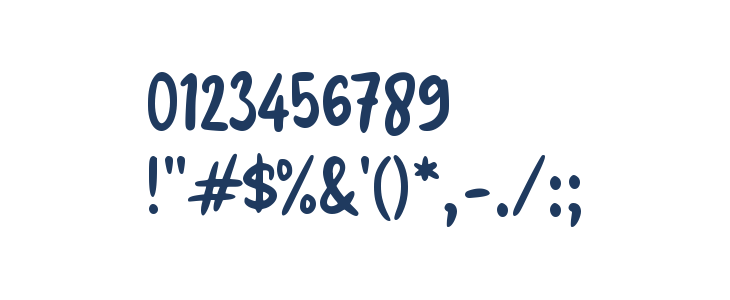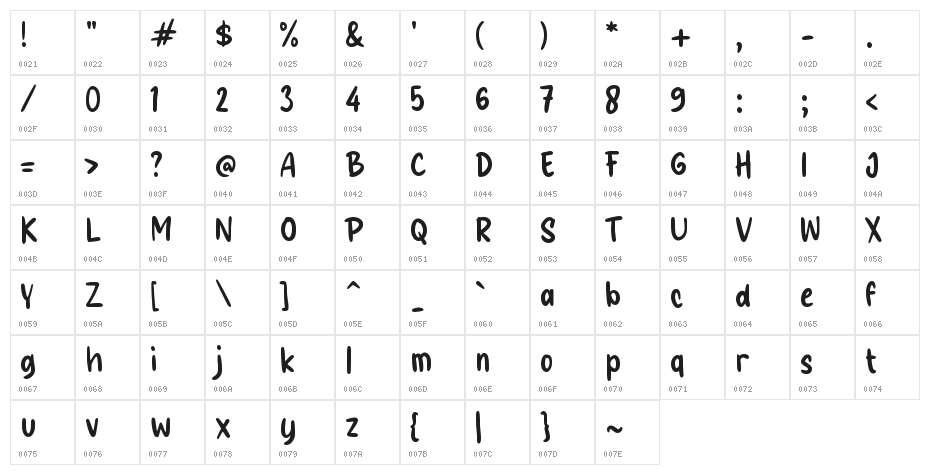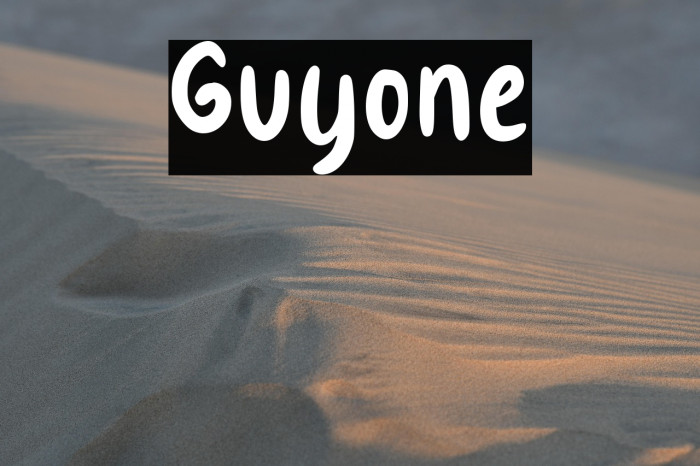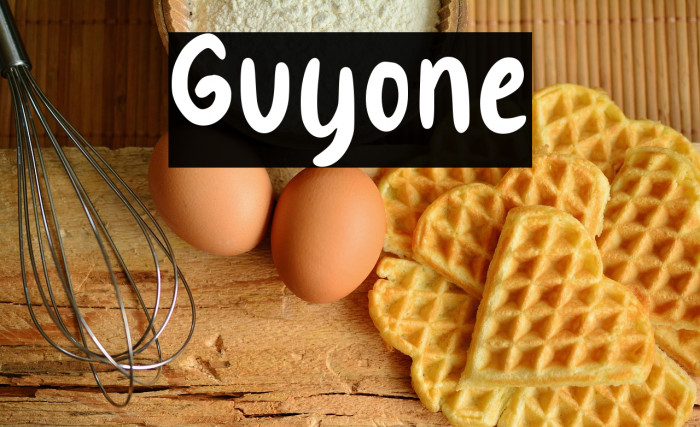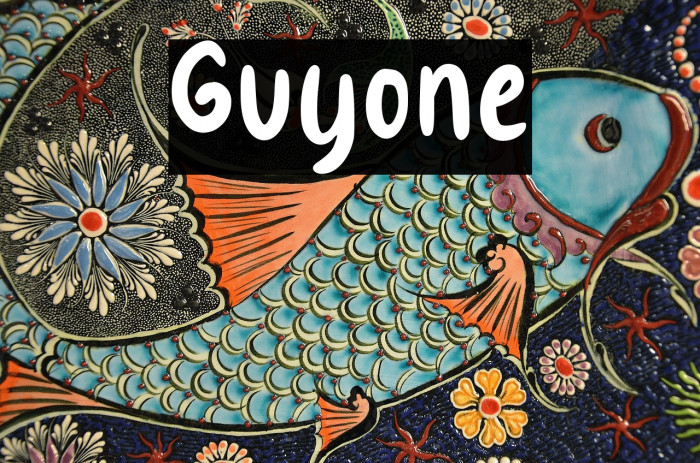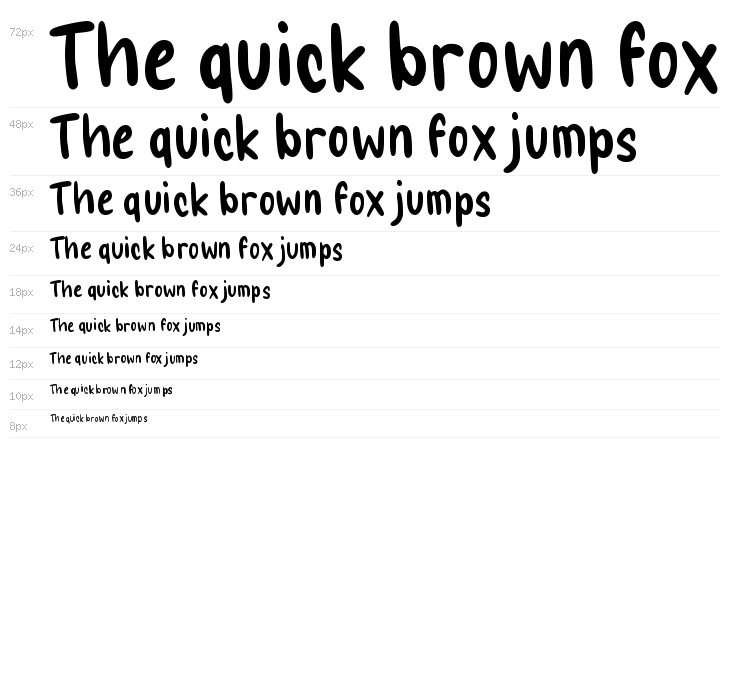
Guyone Font
Guyone Description
This font features a playful and casual handwritten style, characterized by its bold and rounded letterforms. The uppercase and lowercase letters maintain a consistent flow, with slightly irregular strokes that add a personal touch. The numerals and special characters follow the same informal aesthetic, making the font suitable for projects that require a friendly and approachable look. The overall appearance is dynamic and lively, with a medium contrast in stroke thickness that enhances readability while maintaining its whimsical charm.
| Proposed Projects | Ideal for children's books, greeting cards, playful branding, and casual social media graphics. |